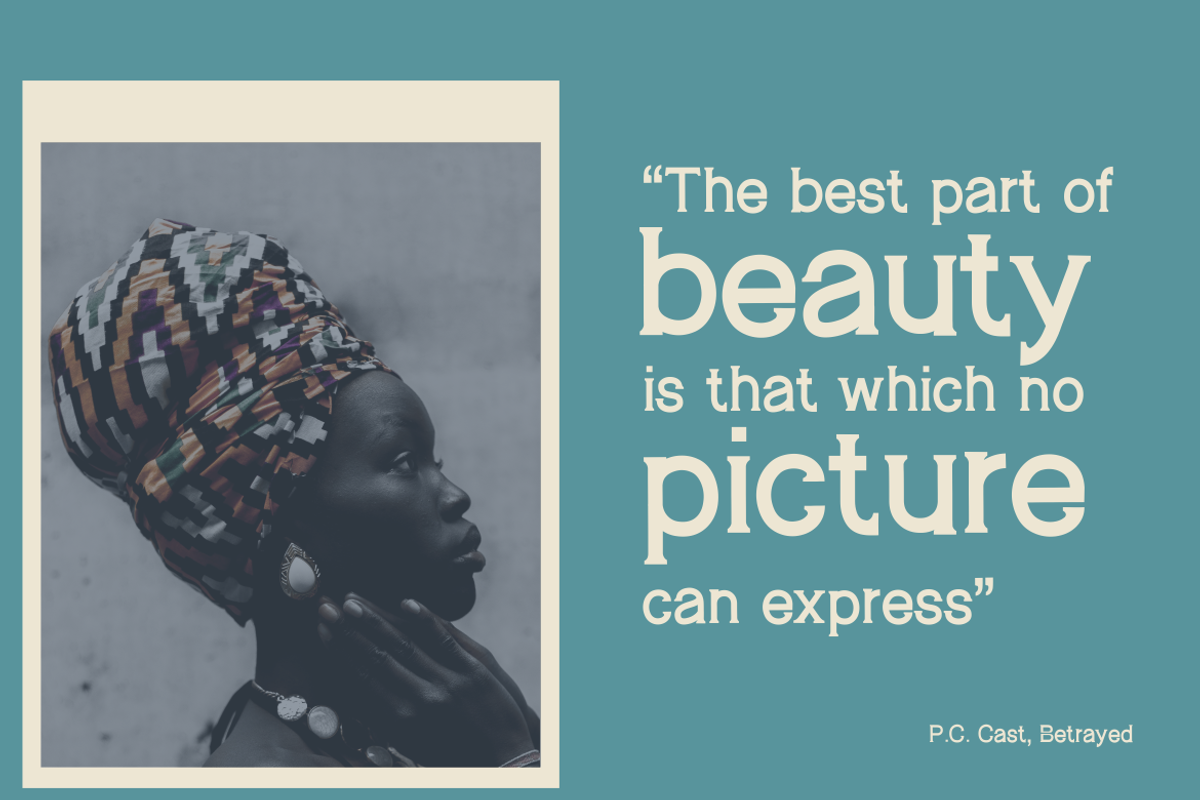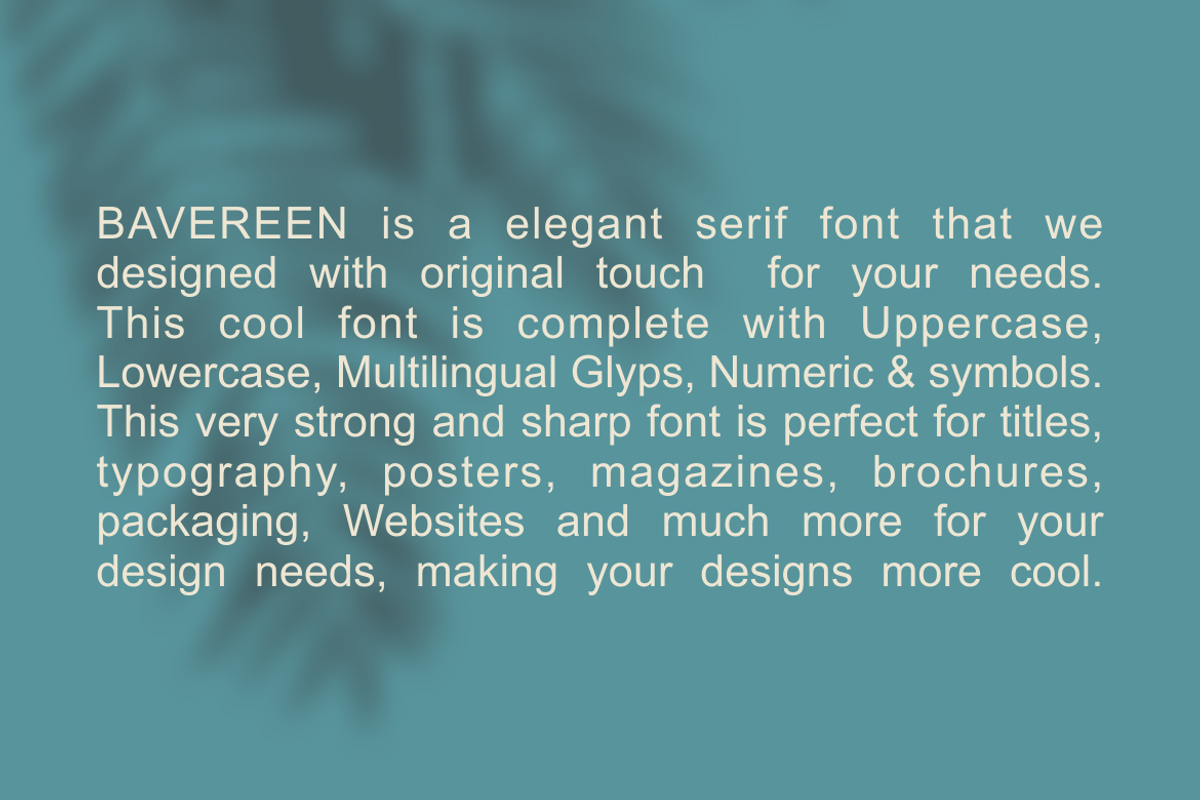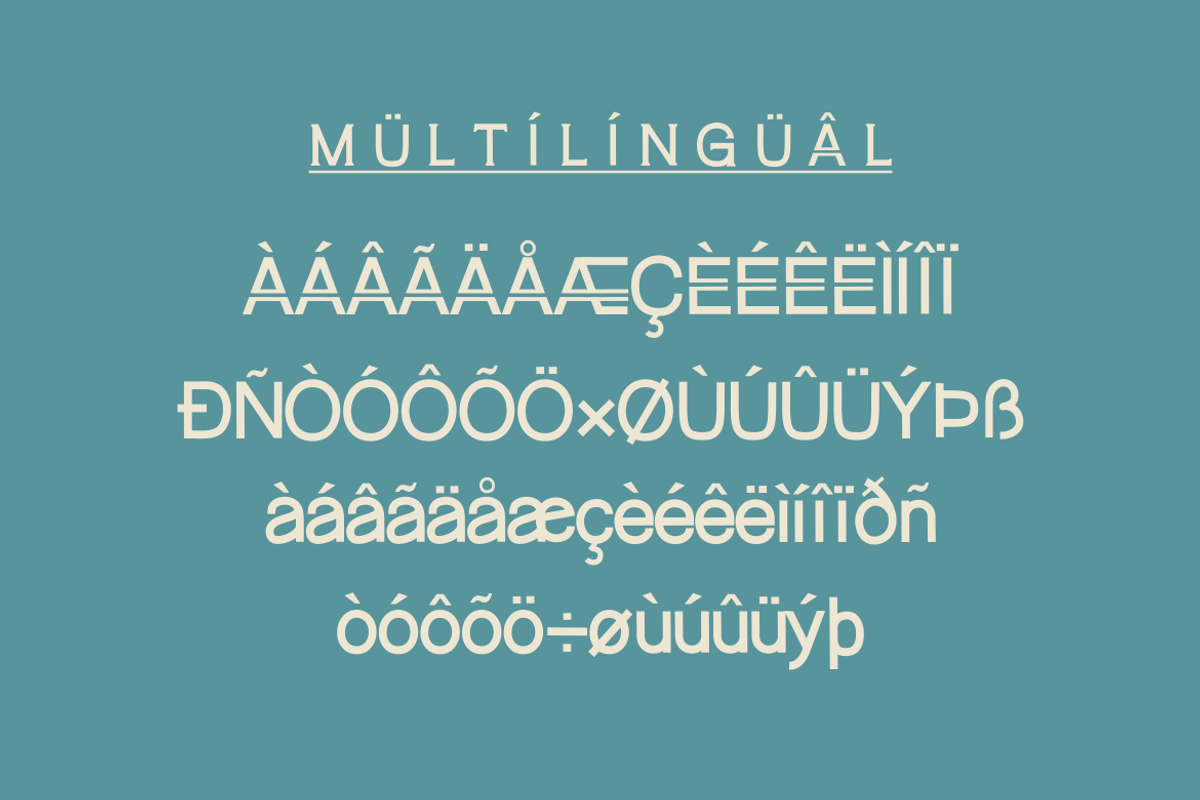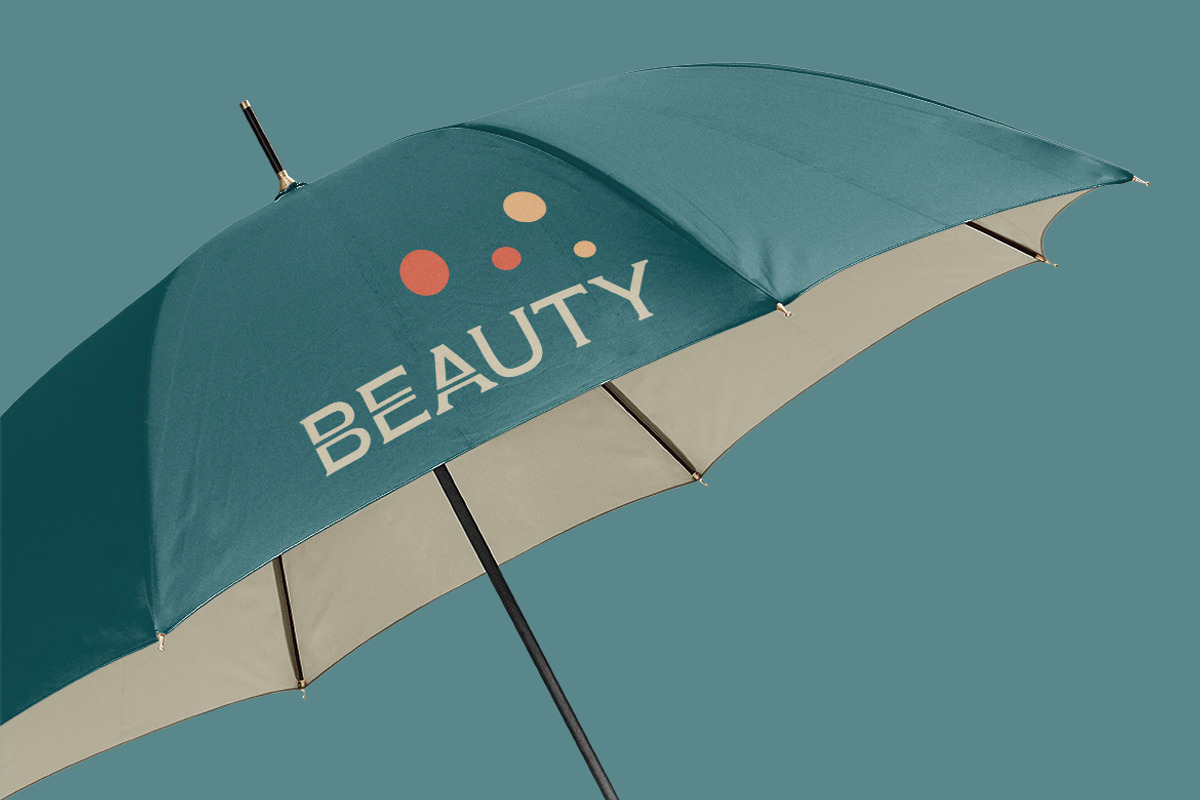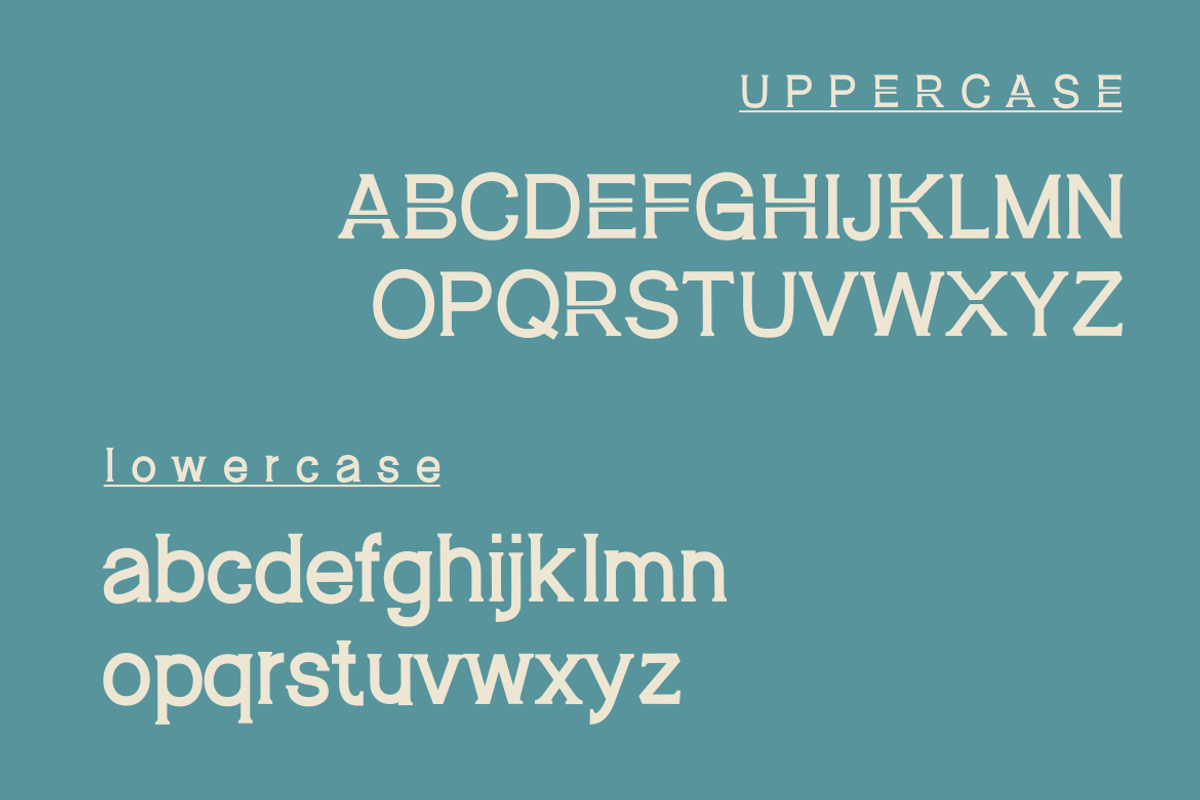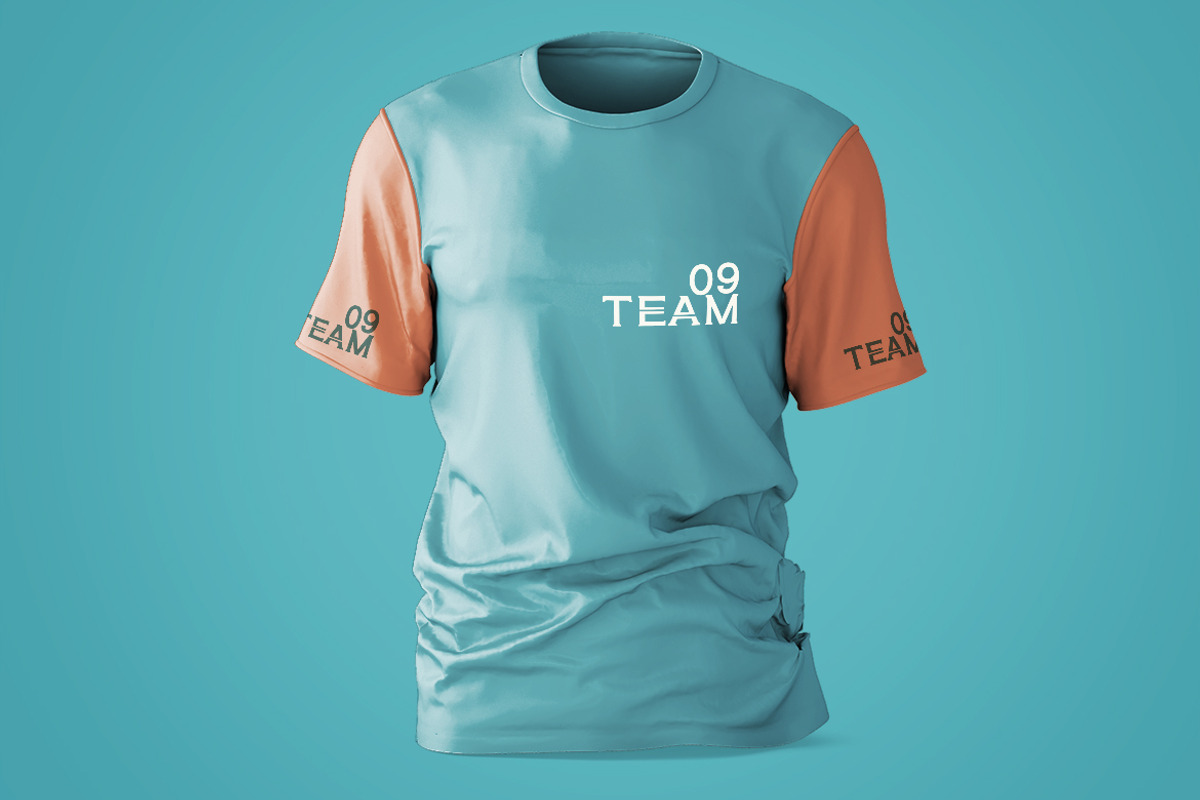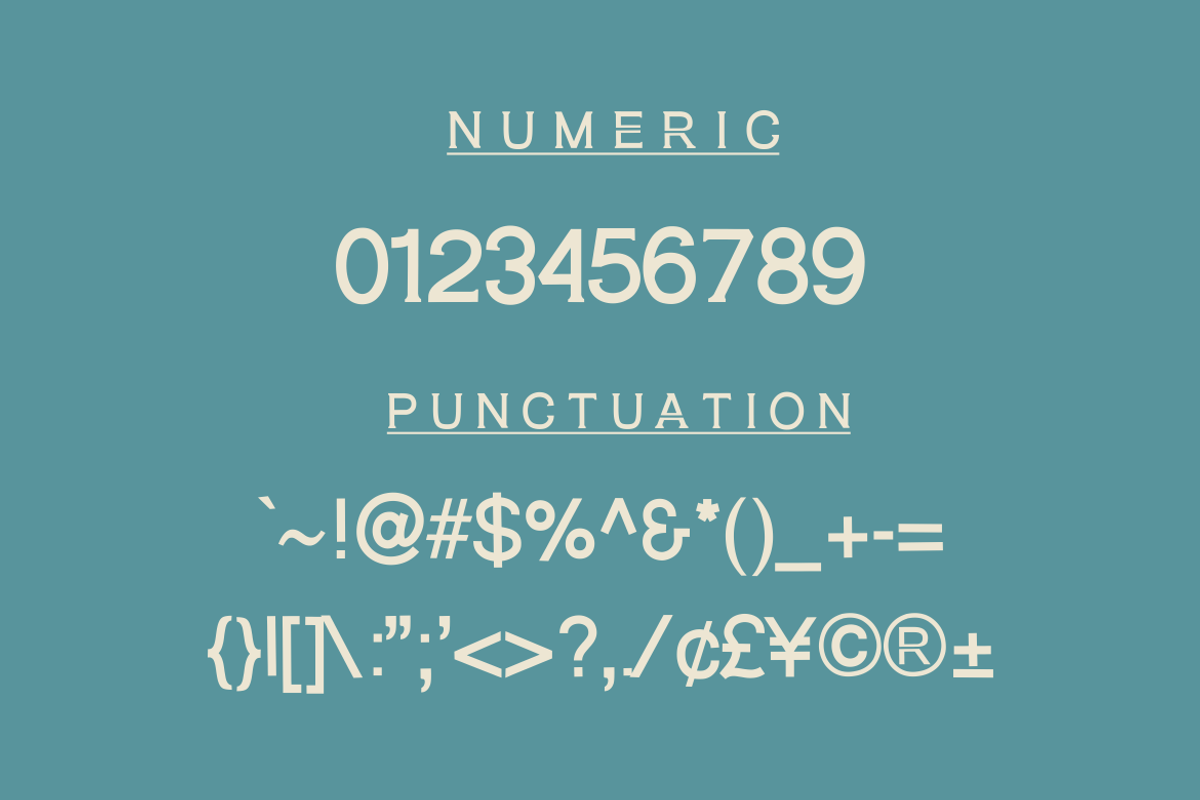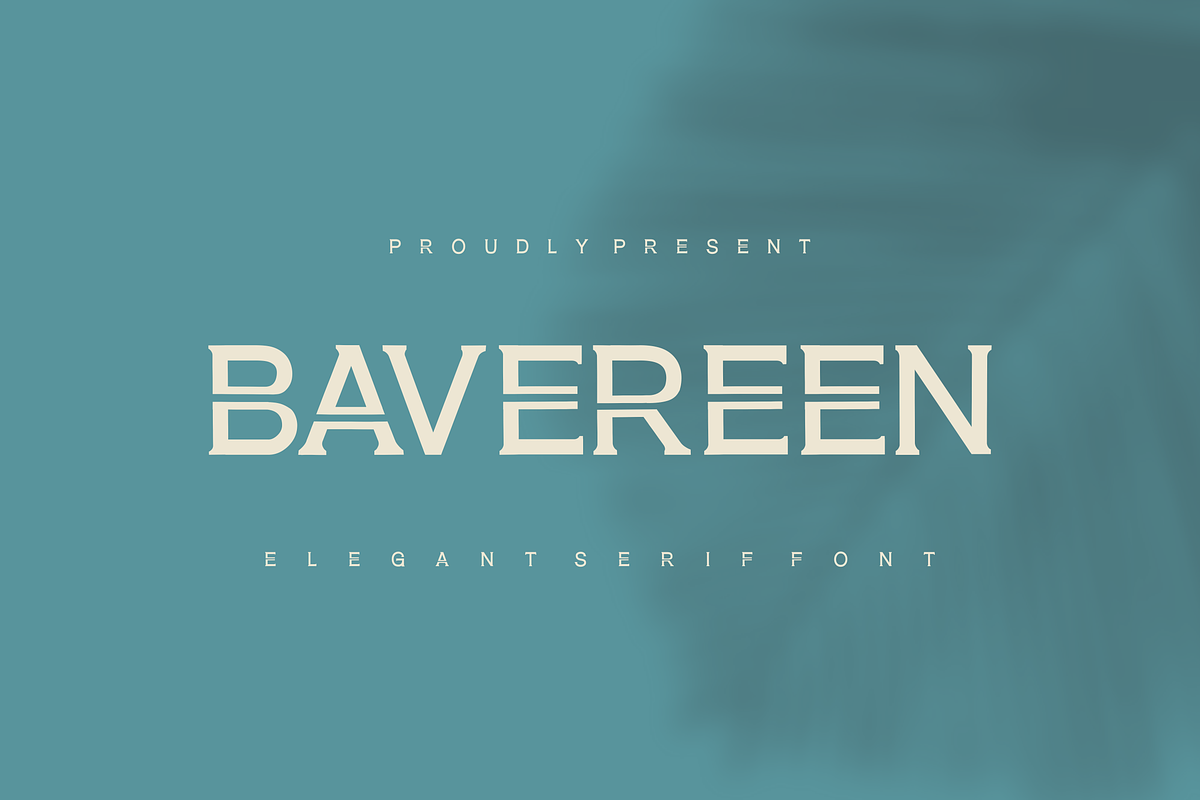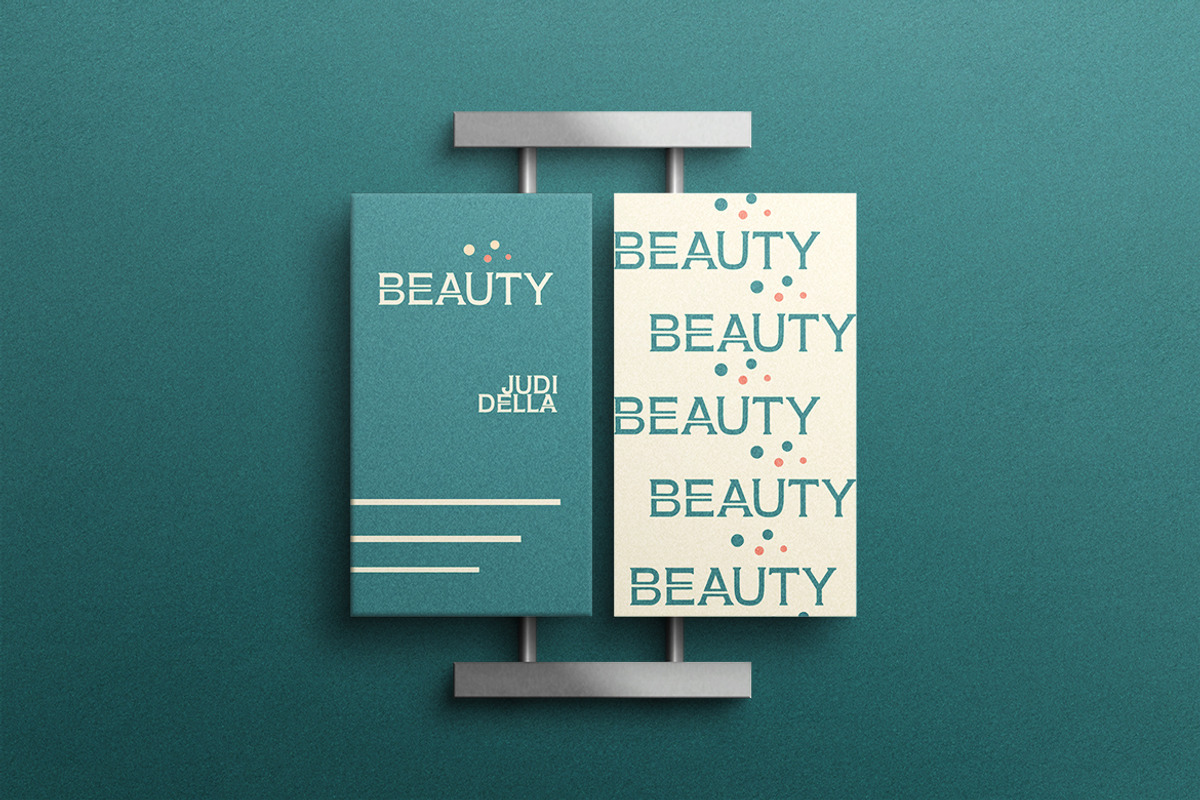
BAVEREEN SERIF
BAVEREEM is elegant serif font that we designed with original touch for your needs. This cool font is complete with Uppercase, Lowercase, Numeric & symbols. This very strong and sharp font is perfect for titles, typography, posters, magazines, brochures, packaging, Websites and much more for your design needs, making your designs more cool.